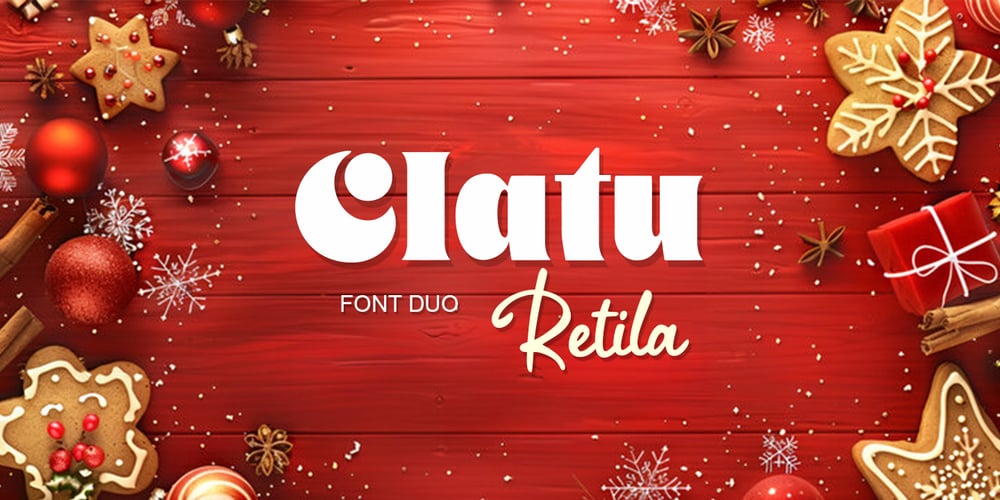
Clatu Font Family was designed by Muammar and published by Scoothtype. Clatu contains 7 styles and family package options. Introducing Clatu & Retila is a luxurious font duo with an elegant combination. You can use it as an addition or main. In this font, all letters are Uppercase and lowercase, you will find various ligatures and alternatives that will help you create a unique design for your project, try changing the ligatures and alternatives and you will see how many options you can choose which one is suitable for logos, magazines, social media and more. This font is easy to use and has OpenType features.